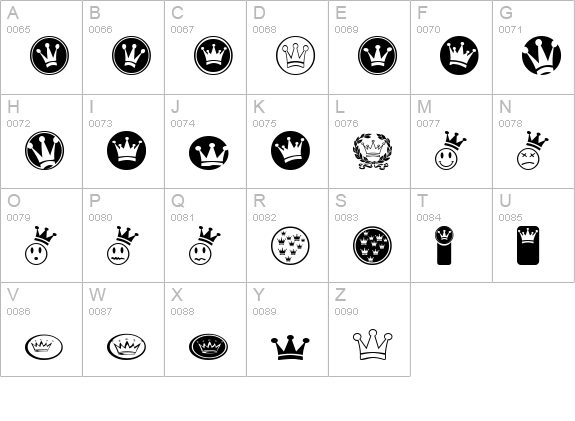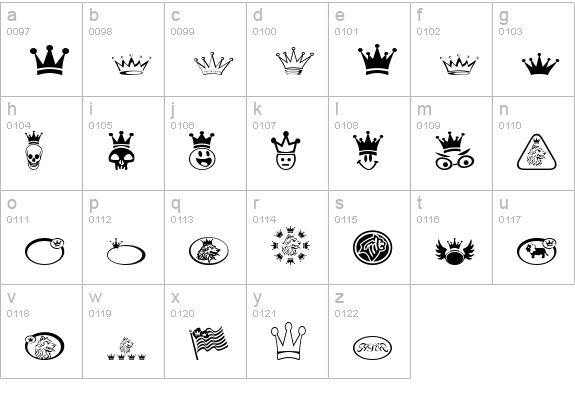
Monarchbats Font Details
Monarchbats font is a stunning display typeface that exudes elegance and sophistication. Its intricate details and graceful curves make it perfect for adding a touch of regality to any design project. The ornate design of Monarchbats font gives it a timeless and majestic appearance, making it ideal for creating eye-catching headlines, invitations, and branding materials. What sets Monarchbats font apart is its versatility and ability to seamlessly blend into various design styles, from classic to modern. Whether you're working on a vintage-inspired project or a contemporary design, Monarchbats font will bring a touch of class and sophistication. One of the best things about Monarchbats font is that it is free to download at FontsMarket.com. This means that you can easily access this exquisite typeface and use it in your projects without any cost. So, why wait? Elevate your designs with the royal charm of Monarchbats font today!